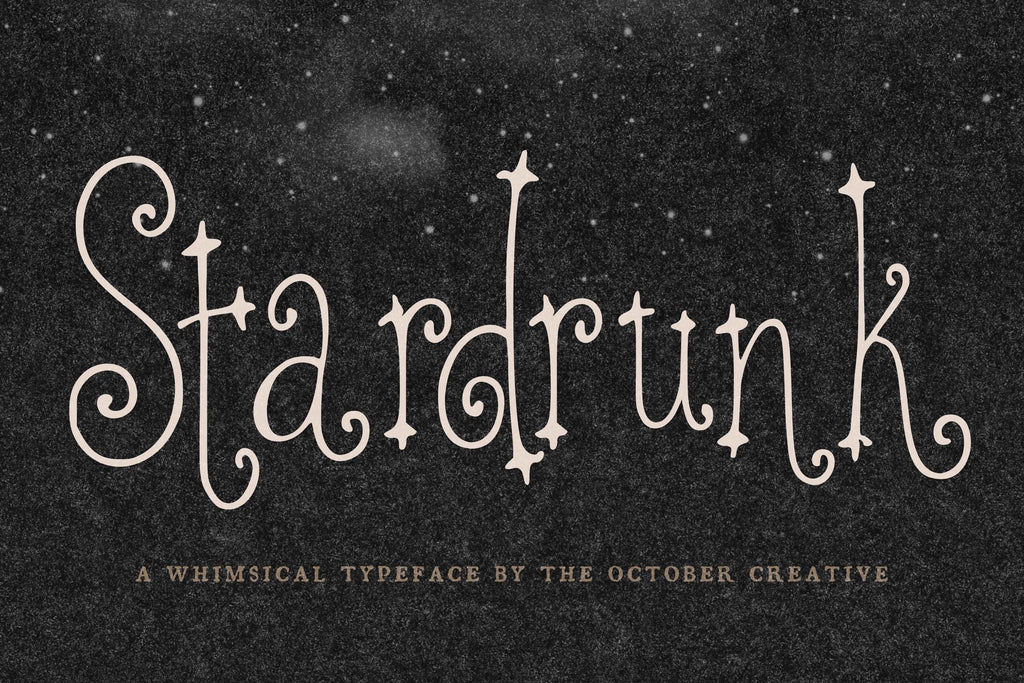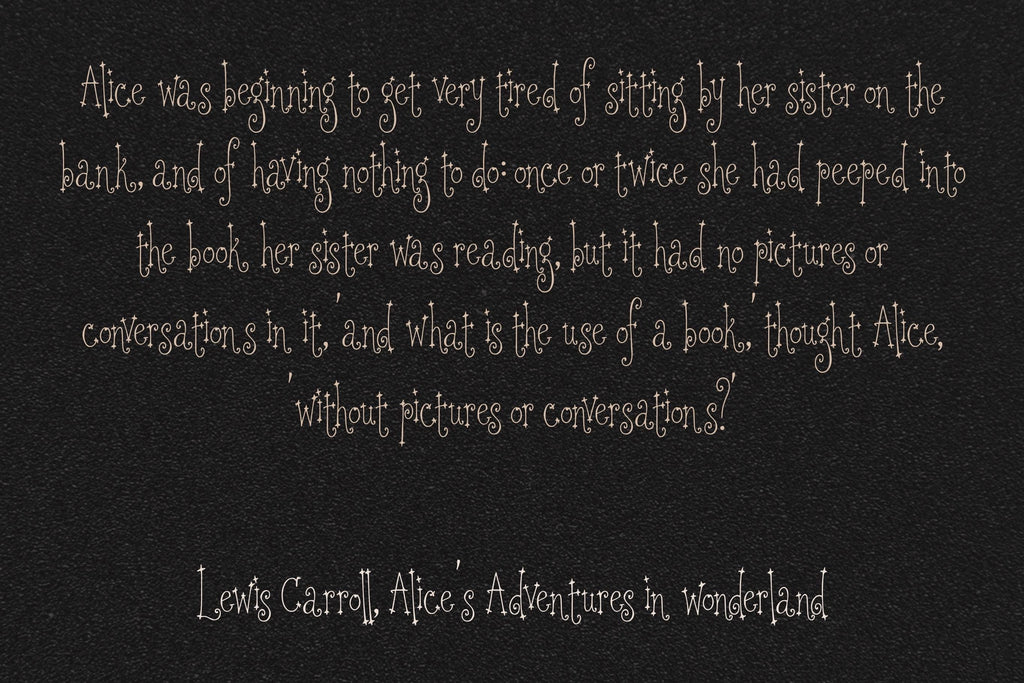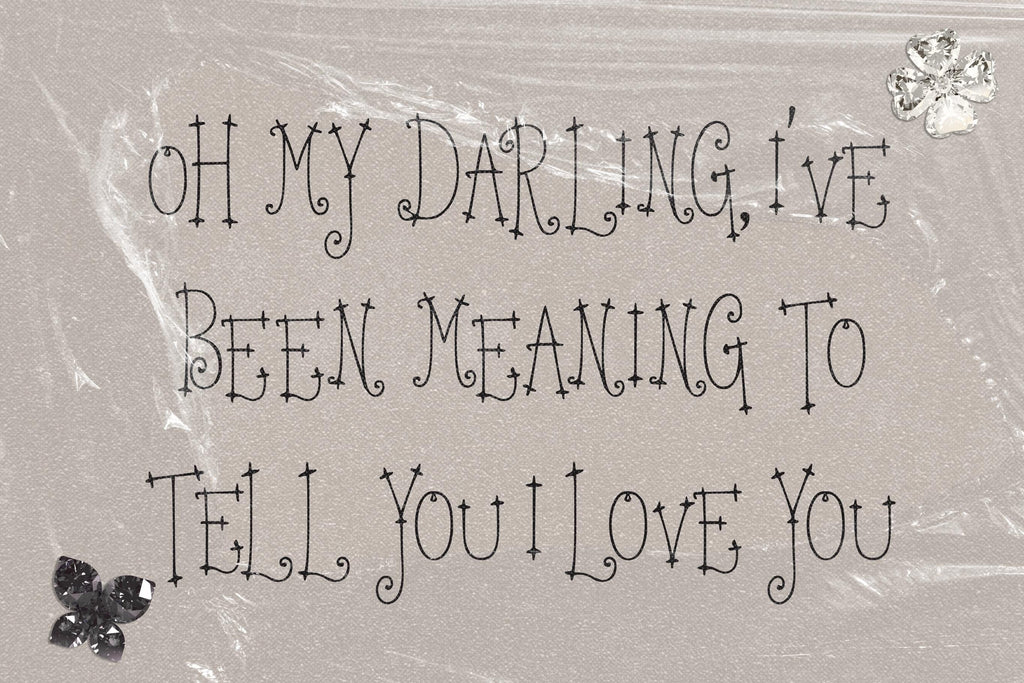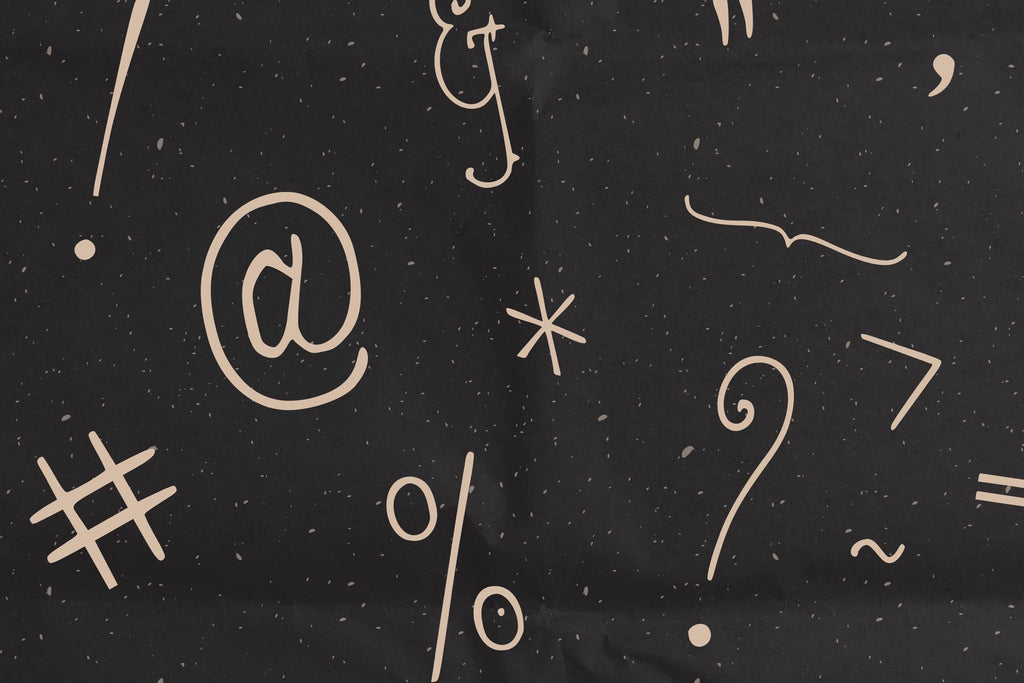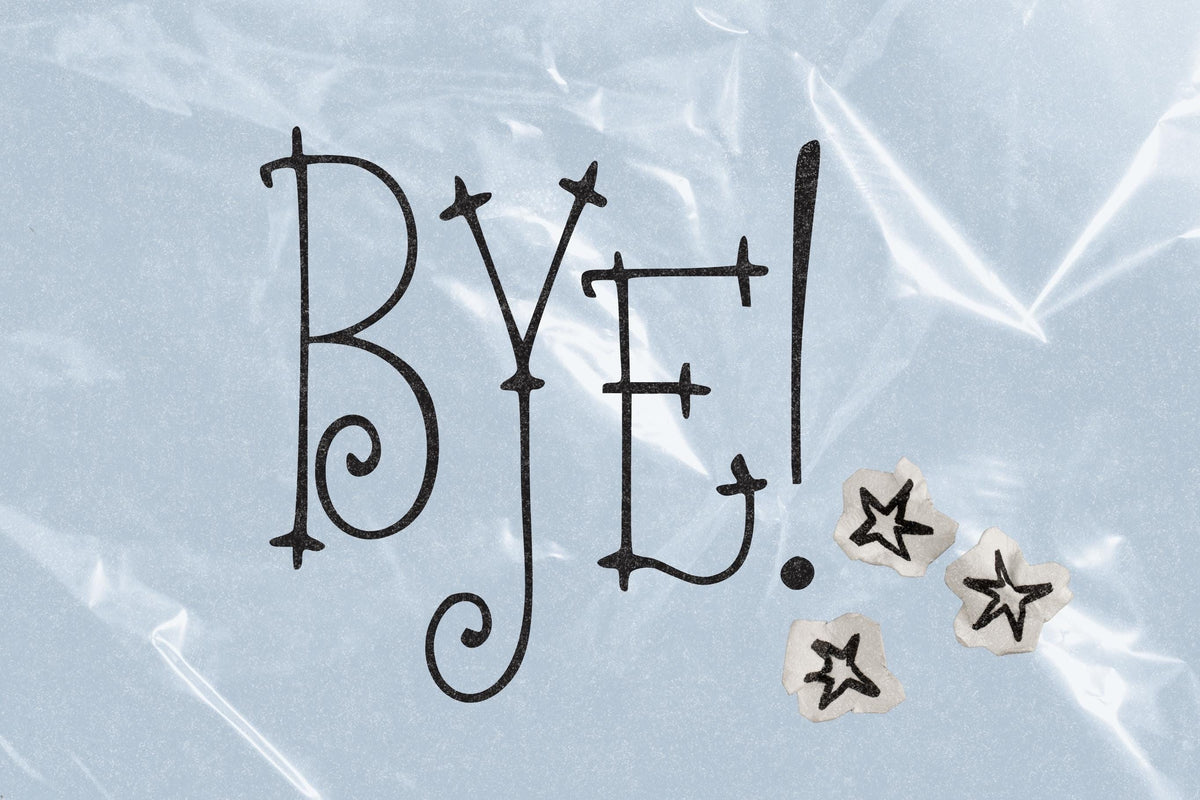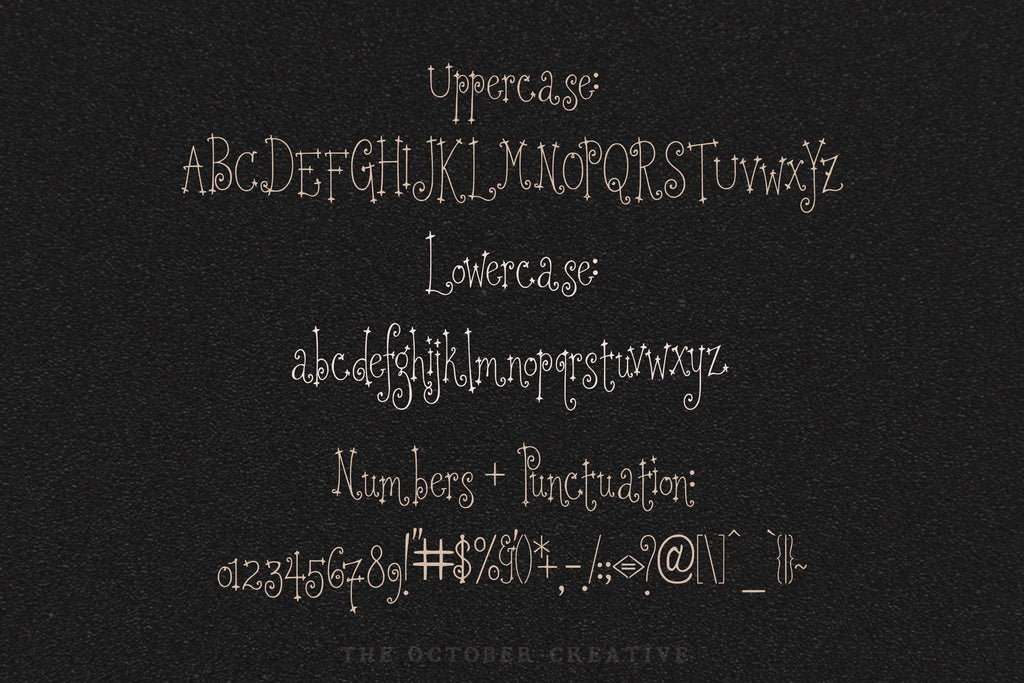
Stardrunk Font
Stardrunk is a thin, whimsical serif font with tiny four-point stars on its serifs and curled ends on its capitals. It's made for moon and stars projects: celestial wedding invitations, astrology prints, tarot journals, and night sky party decor.